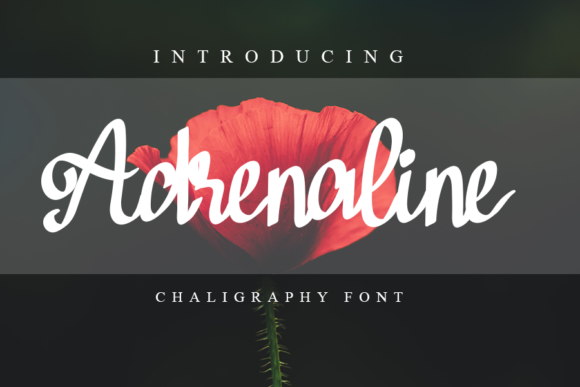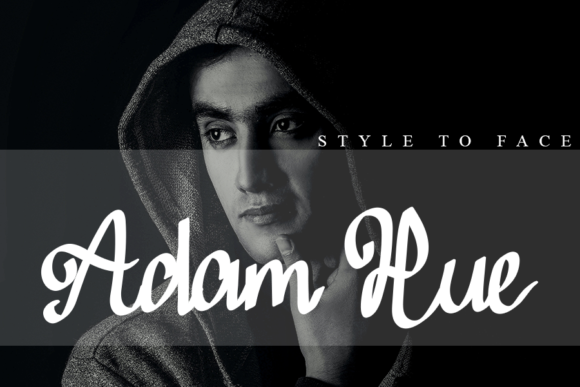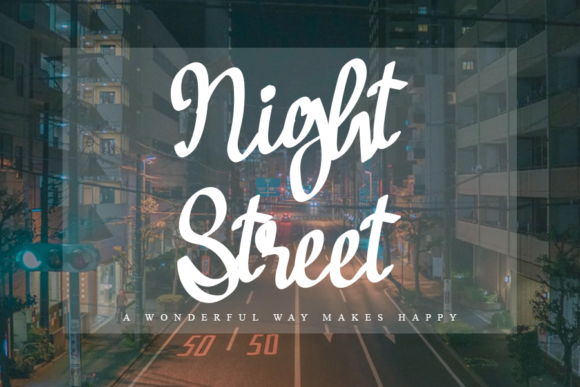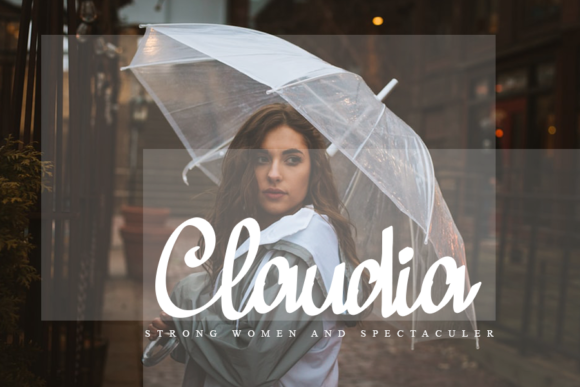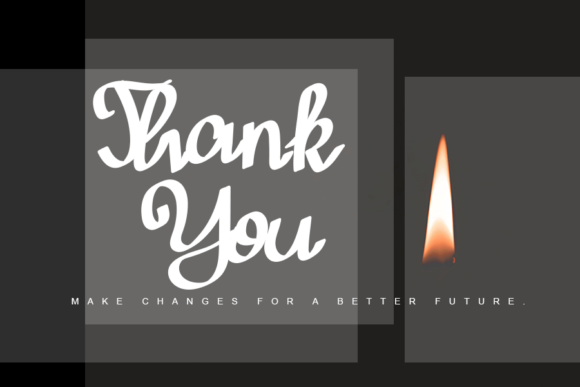
Adrenaline Font
About Adrenaline Font
Adrenaline simplifies elegance into one truly outstanding handwritten font. This font is the perfect fit for all of your logos, branding, social media, and crafty DIY projects.